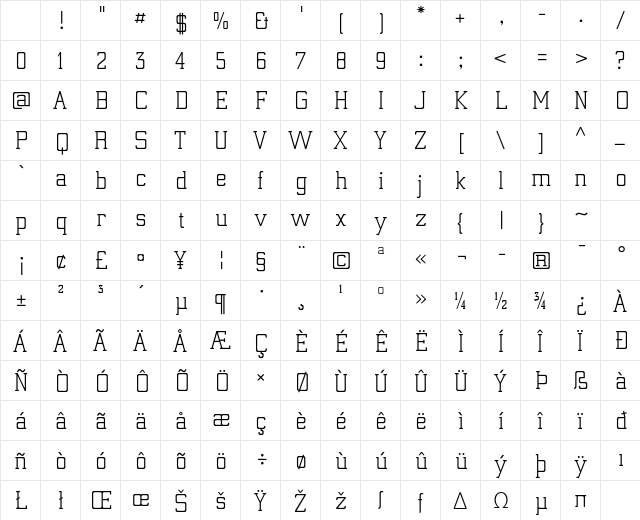
Complete Electrum ADF Exp Regular glyph index. Displaying only characters natively supported by Electrum ADF Exp Regular font.
Electrum ADF Exp is a composed and adaptable typeface that performs quietly and consistently across a wide range of design contexts.